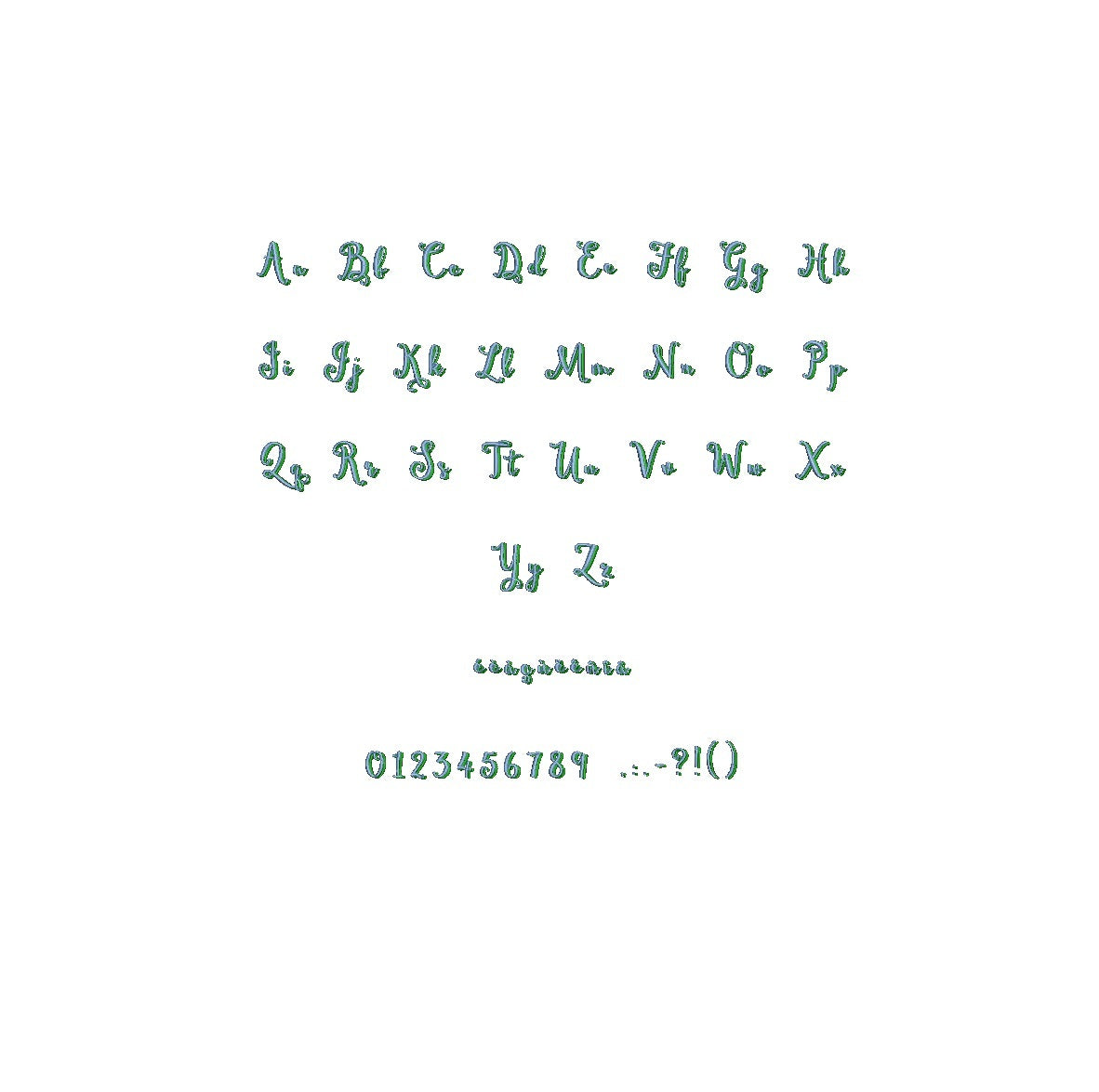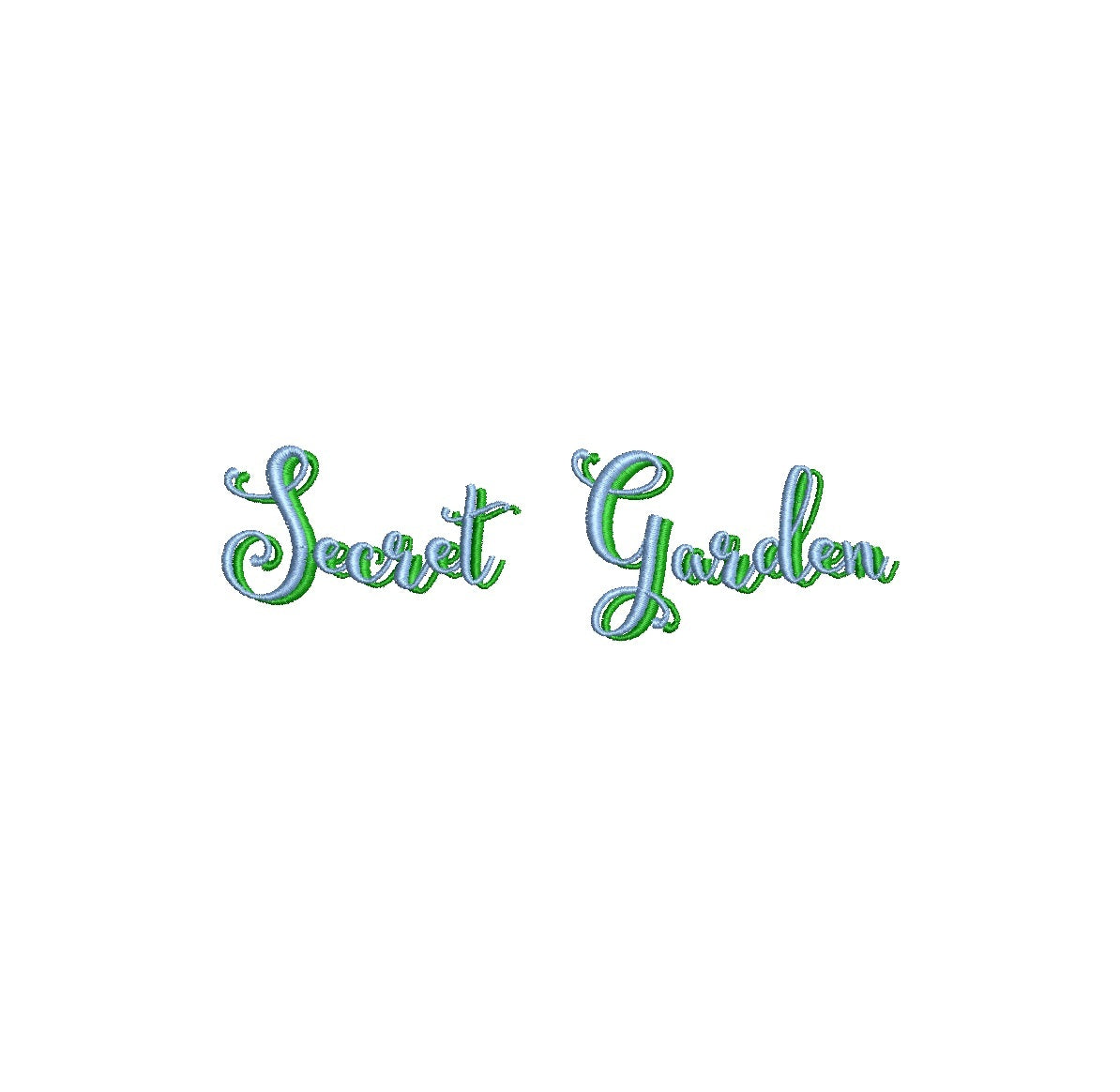
Elevate your embroidery with the enchanting Secret Garden Shadow ESA font. Engineered for Wilcom Studio e4.5.6 and Hatch 3 versions and beyond, this font seamlessly combines mystique and compatibility. Craft captivating designs with its alluring shadow effect, infusing depth and charm into your lettering. Perfect for various applications, from whimsical motifs to elegant text layouts. Effortlessly unleash your creativity as Secret Garden Shadow ESA font adds a touch of intrigue to your embroidery. Elevate your craftsmanship and leave a lasting impression. Choose this font to transform your designs into captivating masterpieces that stand out.